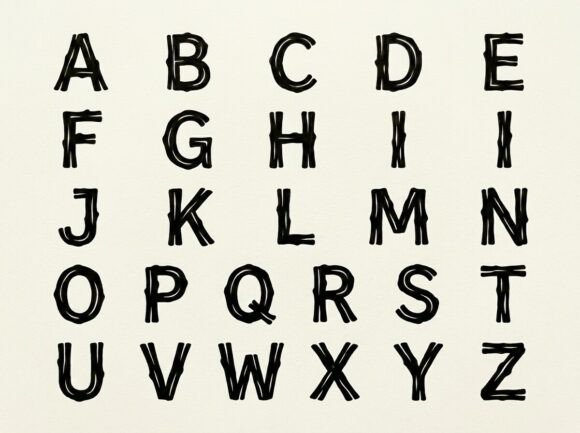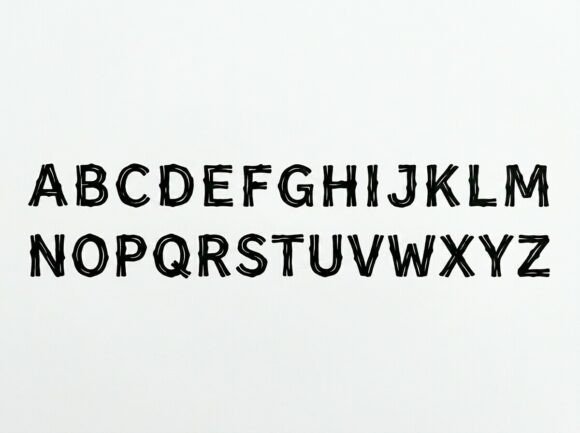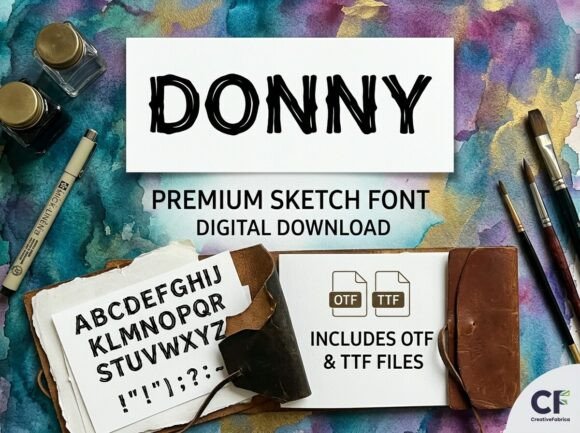
Introducing Donny Font: Unleash the Power of Handcrafted Personality in Your Designs
In a world where digital designs dominate, it’s refreshing to come across a font that embodies the raw, handcrafted beauty of traditional art. Donny Font is a bold display typeface that does just that, infusing your designs with a sense of authenticity and rugged charm. With its heavy, blocky letterforms and rhythmic, sketchy internal textures, Donny is the perfect choice for designers and crafters looking to add a touch of human-centric design to their visual identity.
The Inspiration Behind Donny Font
Donny Font is inspired by the imperfections and uniqueness of hand-drawn art. The font’s creator aimed to capture the essence of traditional sketching, using a thick marker or charcoal on paper. The result is a typeface that exudes a sense of warmth and approachability, making it perfect for modern streetwear branding, edgy editorial headers, artisanal packaging, and engaging social media content.
Key Features of Donny Font
So, what sets Donny Font apart from other display typefaces? Here are some of its key features:
- Heavy, blocky letterforms: Donny’s bold and chunky letterforms make it perfect for headlines and titles that demand attention.
- Rhythmic, sketchy internal textures: The font’s internal textures mimic the movement of a thick marker or charcoal on paper, giving it a handcrafted feel.
- Rugged charm and solid visual weight: Donny’s rugged charm and solid visual weight provide a sophisticated yet approachable aesthetic.
Use Cases for Donny Font
Donny Font is an incredibly versatile typeface that can be used in a variety of design applications. Here are some use cases where Donny shines:
- Modern streetwear branding: Donny’s bold and edgy personality makes it perfect for streetwear brands looking to make a statement.
- Edgy editorial headers: The font’s rugged charm and solid visual weight make it ideal for editorial headers that demand attention.
- Artisanal packaging: Donny’s handcrafted feel and sophisticated aesthetic make it perfect for artisanal packaging designs.
- Engaging social media content: The font’s bold and attention-grabbing personality makes it perfect for social media content that needs to stand out.
Benefits of Using Donny Font
So, why should you choose Donny Font for your next design project? Here are some benefits of using Donny:
- Adds a touch of handcrafted warmth: Donny’s handcrafted feel adds a touch of warmth and personality to your designs.
- Ensures professional, human-centric design: The font’s sophisticated aesthetic and rugged charm ensure a professional, human-centric design.
- Makes headlines stand out: Donny’s bold and attention-grabbing personality ensures that your headlines stand out and leave a lasting impression.
In conclusion, Donny Font is a bold display typeface that celebrates the raw beauty of hand-drawn art. With its heavy, blocky letterforms, rhythmic, sketchy internal textures, and rugged charm, Donny is the perfect choice for designers and crafters looking to add a touch of authentic, handcrafted personality to their designs. Whether you’re working on modern streetwear branding, edgy editorial headers, artisanal packaging, or engaging social media content, Donny Font is sure to deliver a sense of handcrafted warmth and professional, human-centric design to your visual identity.